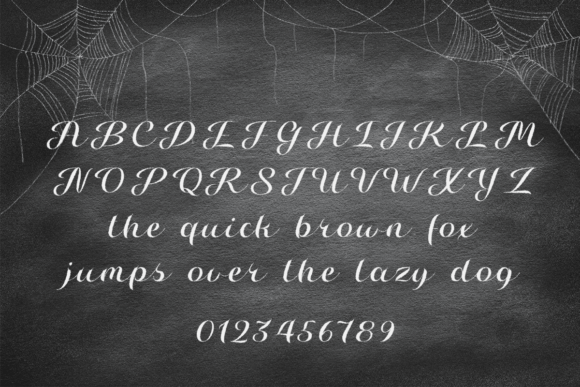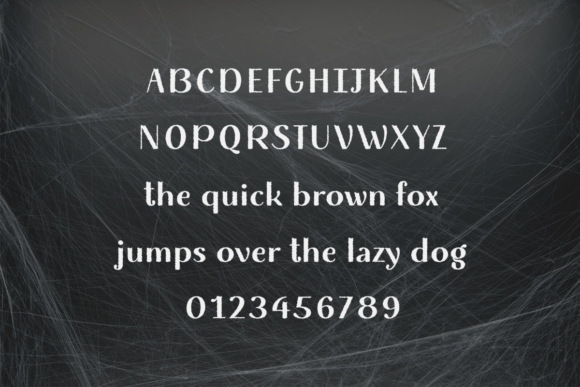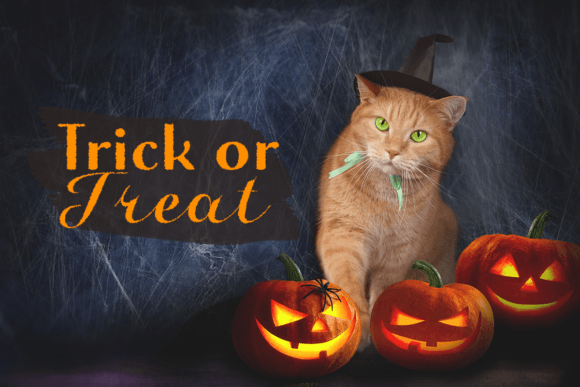
Halloween in Autumn is a fun and spooky font duo that is perfect for your Fall projects.
You can use the fonts together or separately, adding variety to your designs .
Halloween in Autumn Font offers exceptional quality and versatility, making it a valuable addition to your design toolkit. Whether you’re creating for personal projects or commercial use, Halloween in Autumn Font delivers professional results.